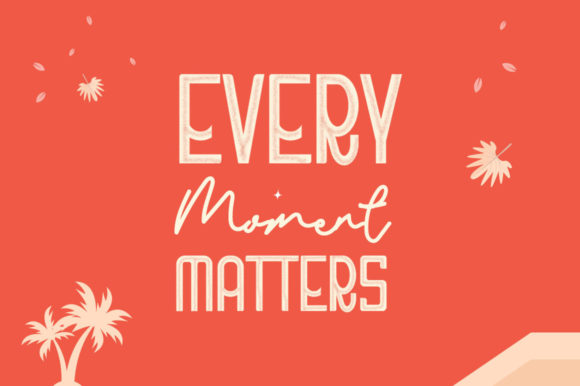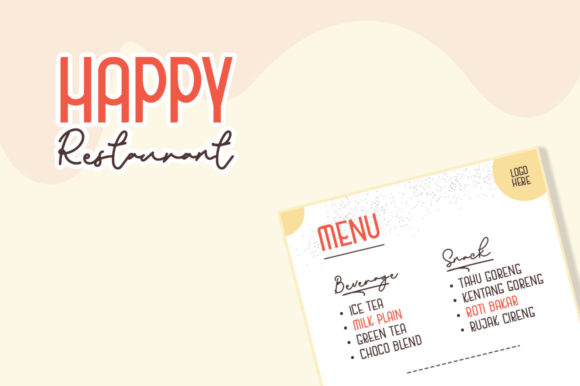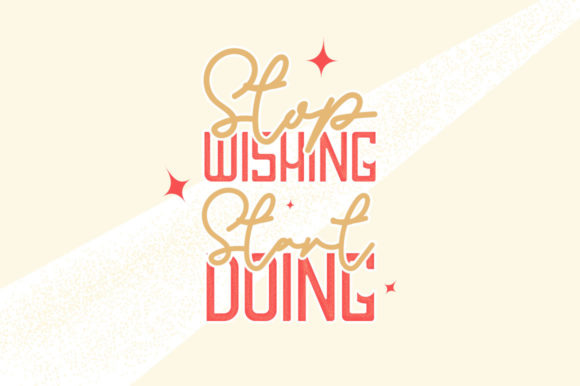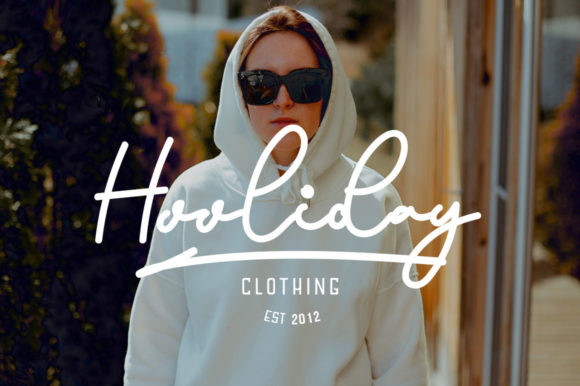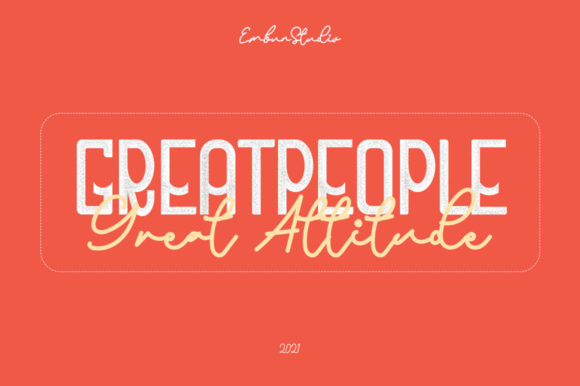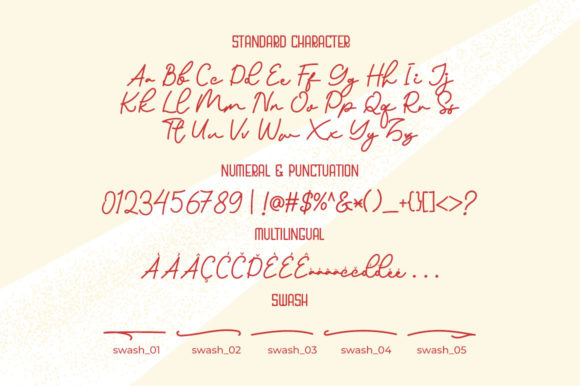
The Perfect Font to Bring Your Creations to Life
You know that moment when a font just clicks and brings your design to life? It’s like a spark of creativity that sets your project ablaze with excitement. For many designers, that moment is elusive, but with the right font, it’s within reach. I’ve recently stumbled upon the Holiday Vacation Font, a stunning duo font that has left me in awe.
This lovely script and display font is incredibly versatile, making it perfect for a wide range of designs. Whether you’re creating a festive holiday card or a elegant wedding invitation, the Holiday Vacation Font is sure to elevate your work to new heights. Its value lies in its ability to add a touch of sophistication and whimsy to any design, making it a must-have for any serious designer.
Holiday Vacation Font Key Features
- Unique Characteristics: Holiday Vacation Font features a unique, distressed, and vintage-inspired design, with a mix of bold and thin lines that evoke a sense of nostalgia and retro charm.
- Character Set: The font includes a comprehensive character set, including uppercase and lowercase letters, numbers, punctuation marks, and special characters, making it suitable for a wide range of applications.
- Font Style: Holiday Vacation Font is a display font, designed to be used for headings, titles, and other attention-grabbing text, rather than body text.
Holiday Vacation Font Review
As a designer, I’ve had the chance to work with many fonts, and Holiday Vacation Font is definitely an interesting one. Here are my thoughts on what works well and what doesn’t.
- Fun and playful vibe: The font has a great energy to it, perfect for festive or celebratory projects.
- Customizable: The font comes with a range of styles and weights, making it easy to adapt to different design needs.
- Perfect for handwritten or cursive text: The font’s unique strokes and flourishes make it ideal for handwritten or cursive text elements.
- Limited legibility at small sizes: While the font looks great at larger sizes, it can be difficult to read at smaller sizes.
- Not suitable for formal or professional projects: The font’s playful vibe may not be suitable for formal or professional projects.
Holiday Vacation Font is a fun and versatile font that’s perfect for projects that need a playful touch. While it has some limitations, it’s definitely a great option for designers who want to add some festive flair to their designs.
Use the Holiday Vacation Font to add a festive touch to your designs. It’s perfect for holiday-themed projects, such as Christmas or New Year’s cards, party invitations, or social media graphics.
Use the Holiday Vacation Font for:
- Holiday-themed projects, such as Christmas or New Year’s cards
- Party invitations or social media graphics
- Decorative headings or titles